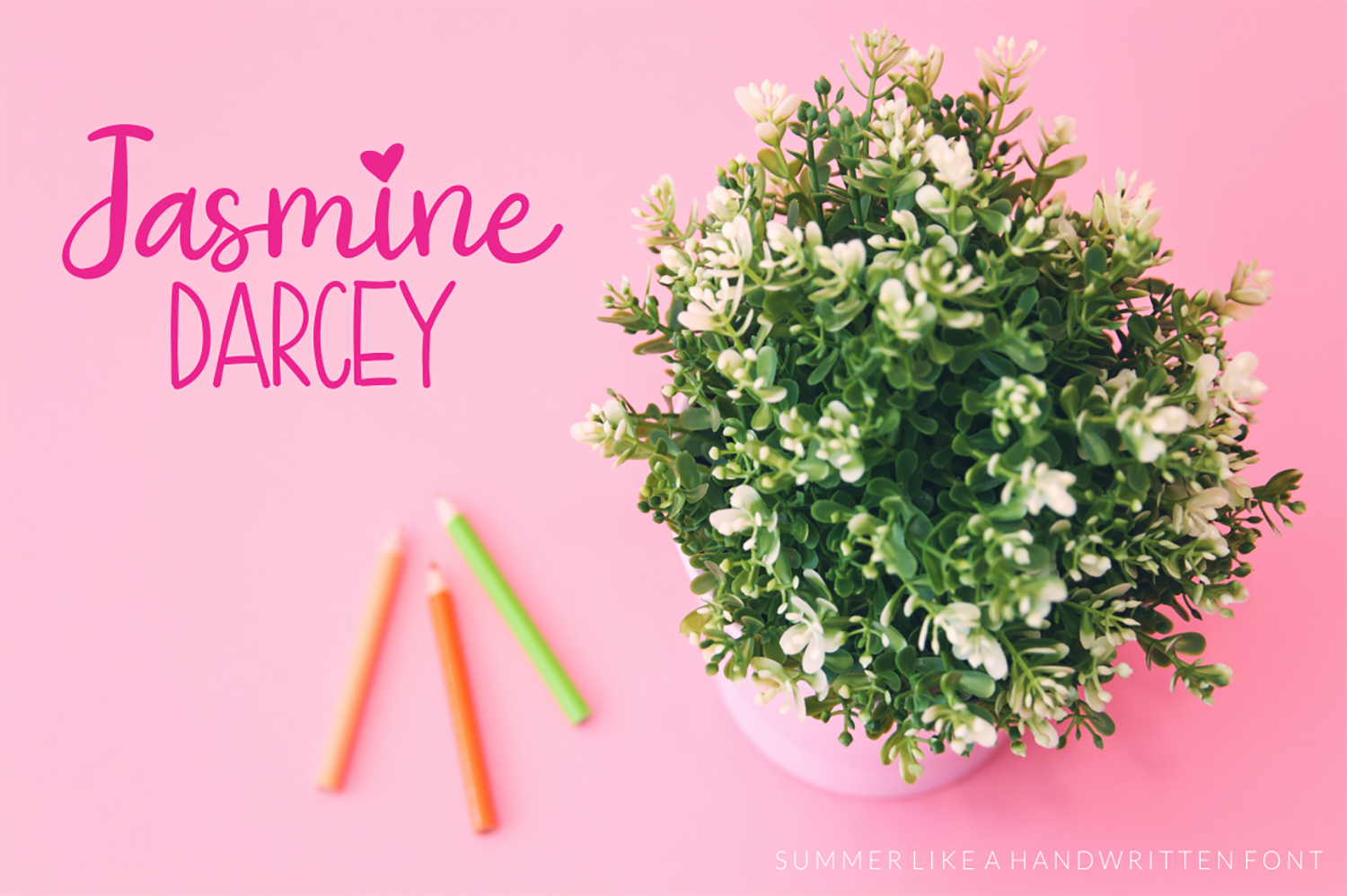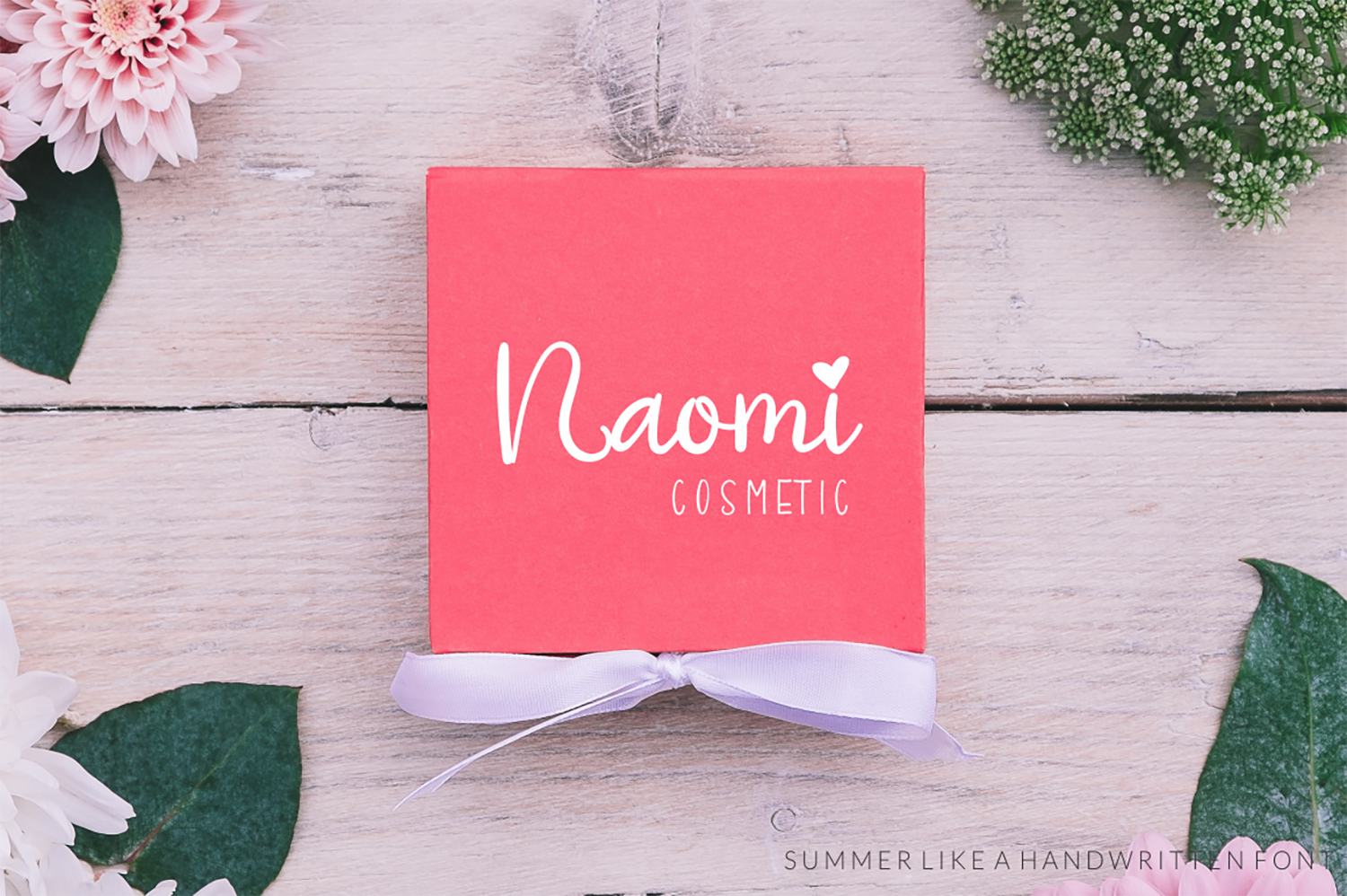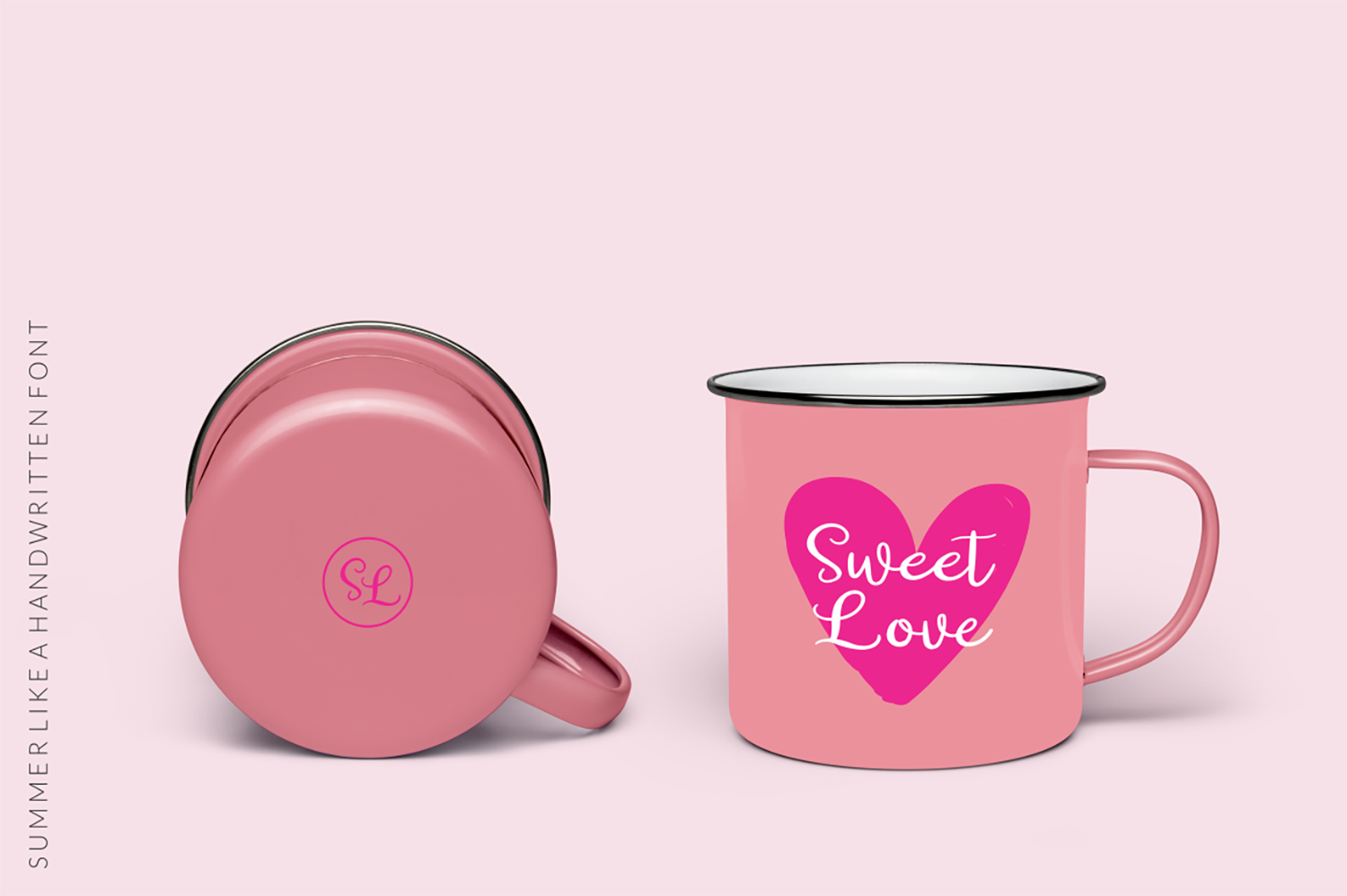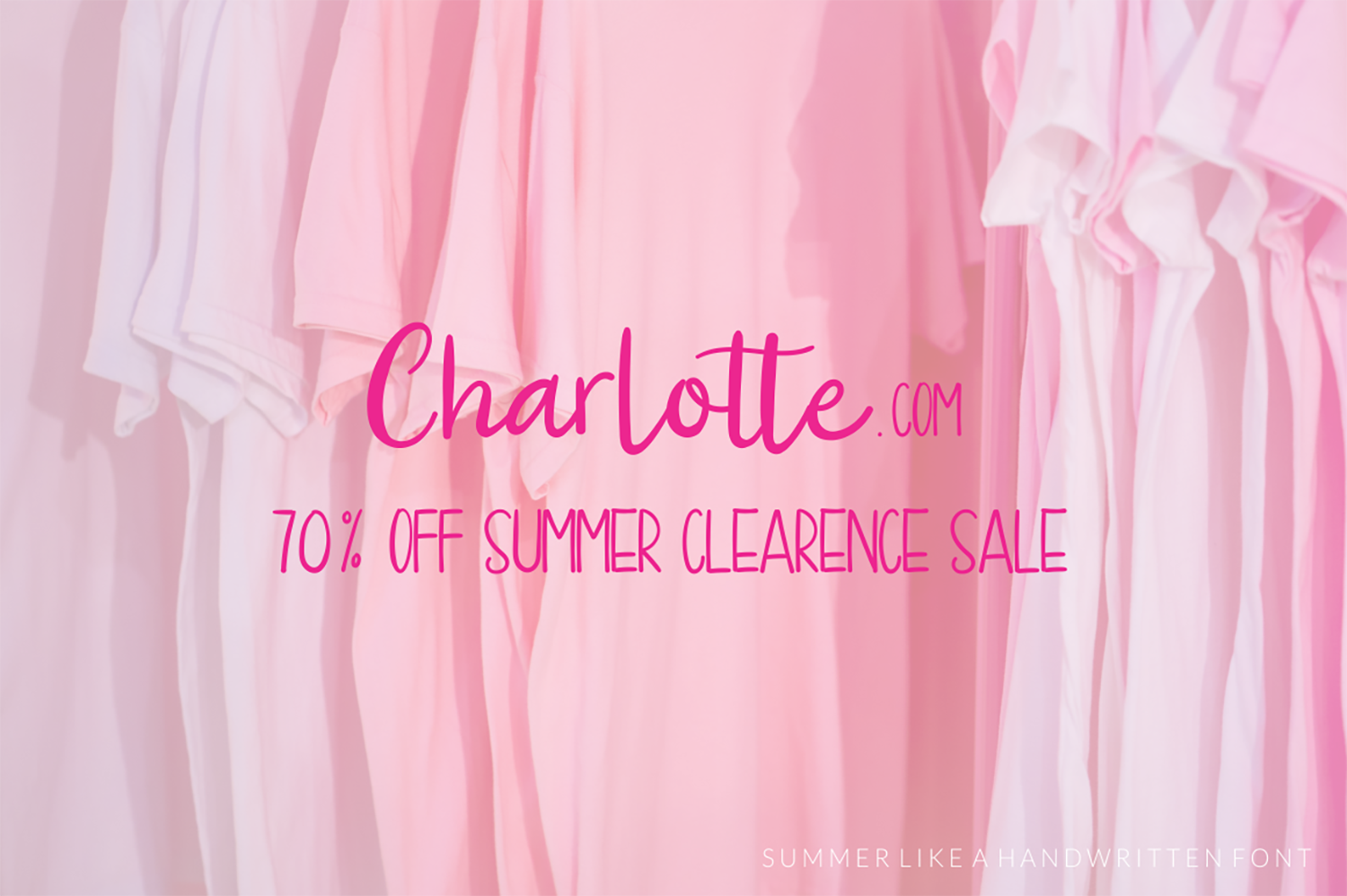
Summer Like Free Font Duo
Summer Like Free Font Duo is a cute and sweet script font duo. It includes a full set of uppercase, lowercase, numerals, punctuation, symbols, and support multilingual. It’s suitable for logos, branding, magazines, posters, stationery designs, business cards, and more. This free typeface was designed by a talented Reyrey Blue. If you like it don’t forget to check out the full version.